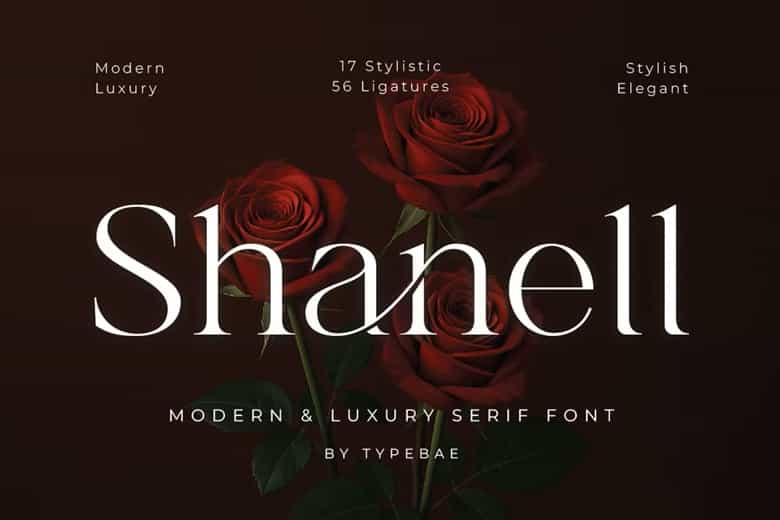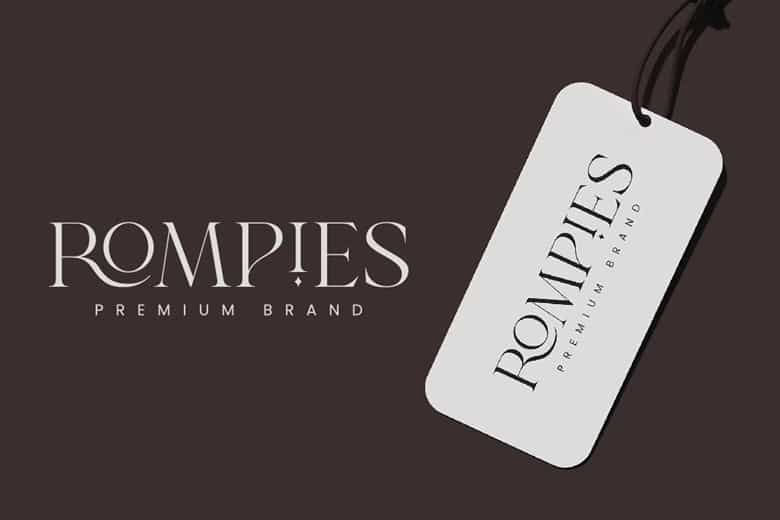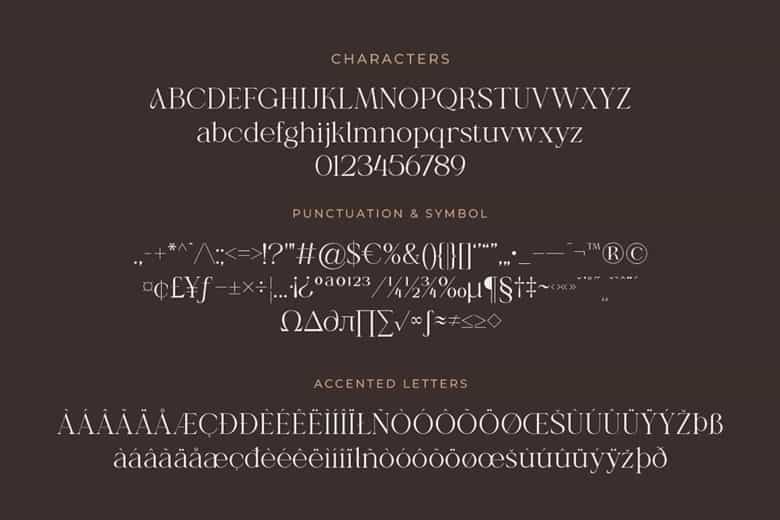
Shanell Font
Shanell is a contemporary and premium serif font, designed to excel in terms of sophistication and flexibility. It includes 56 ligatures and cool alternates it provides your designs with a high-end polished look. Shanell is ideal to use in branding, fashion editorials, wedding invites and even packaging and creating logos because it integrates minimalistic lines and elegance to ensure that any project looks sophisticated and of high quality.